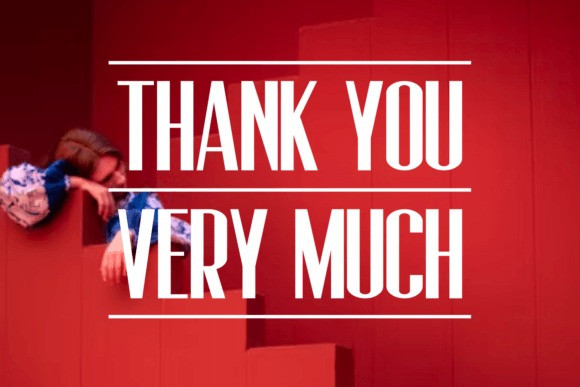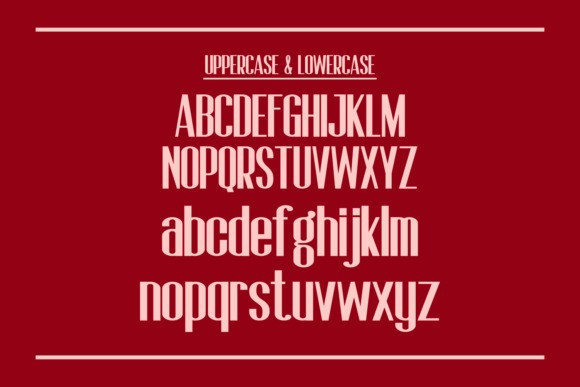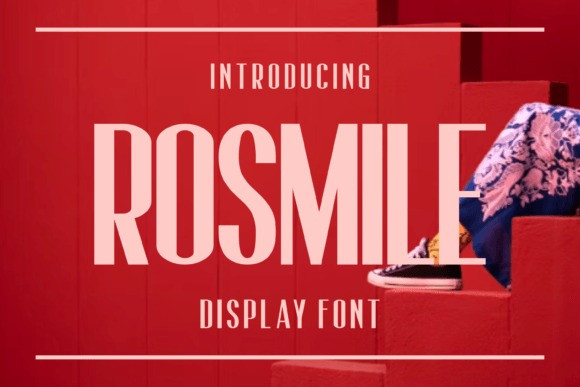
Rosmile Font
Rosmile Font is a bold and assertive sans serif font. No matter the topic, this font will be an incredible asset to your fonts’ library, as it has the potential to elevate any creation.